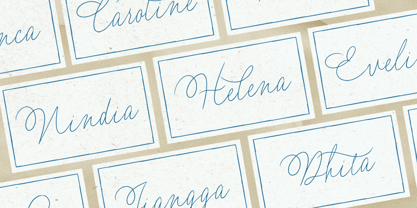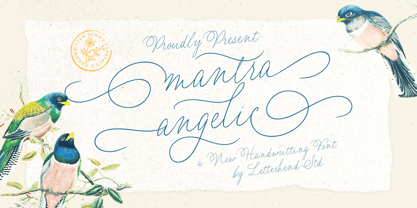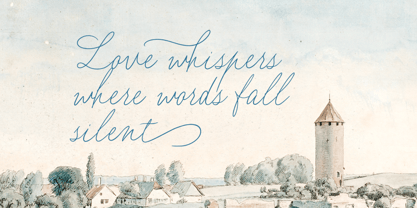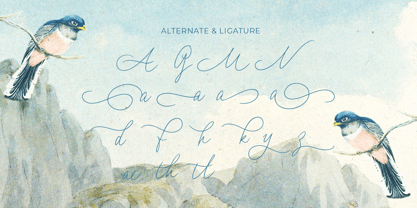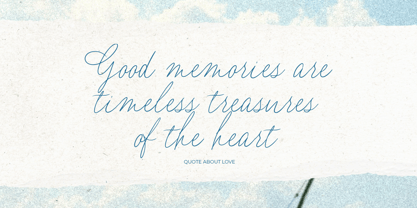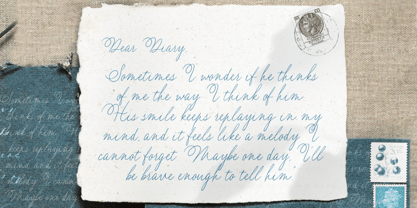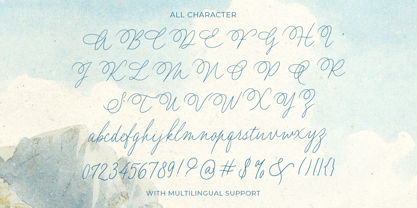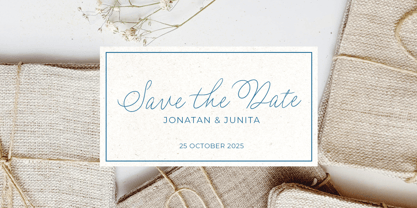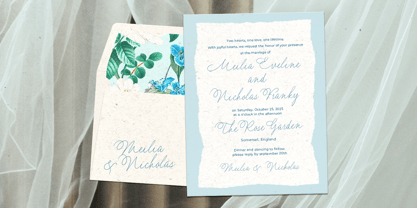
Mantra Angelic
by Letterhend
The Mantra Angelic Font Family was designed by Hendry Juanda and published by Letterhend. Mantra Angelic contains 1 styles. More about this family
Mantra Angelic is a graceful handwritten script font that radiates elegance and warmth. With its flowing curves, delicate swashes, and natural handwritten rhythm, this font feels soft, romantic, and timeless—perfect for wedding invitations, greeting cards, branding, quotes, packaging, and any project that needs a touch of sophistication. Its angelic strokes bring a refined charm without losing the organic, personal feel of real handwriting, making it versatile for both formal and creative designs.
Features :
• Uppercase & lowercase
• Numbers and punctuation
• Alternates & Ligatures
• Multilingual Support
Designers: Hendry Juanda
Foundry: Letterhend